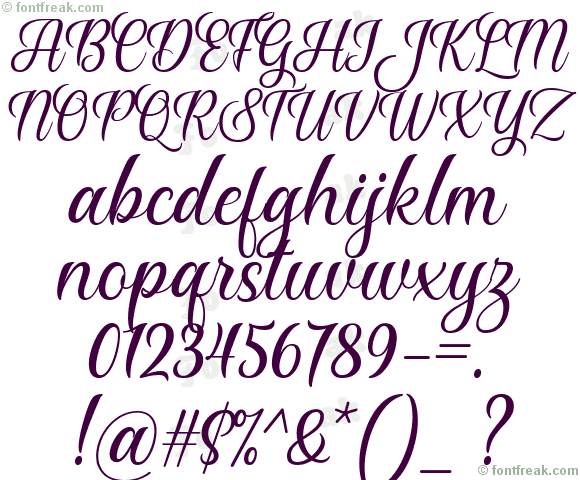
Say Yes
Say Yes — Character Map
About Say Yes
Say Yes, designed by Situjuh Nazara, is a stunning script font that captures the essence of elegance and warmth. This typeface features beautifully flowing letters with a graceful, handwritten quality, making it a perfect choice for various creative projects. The strokes are fluid and expressive, showcasing a medium to high contrast in weight that adds a sense of dynamism to the characters. The spacing is thoughtfully designed, providing a harmonious balance that enhances readability while maintaining its artistic flair.
This font is particularly well-suited for wedding invitations, where its romantic style can set the tone for a special day. It also shines in greeting cards and announcements, adding a personal touch that resonates with recipients. Restaurant menus can benefit from the charm of Say Yes, inviting patrons to enjoy an intimate dining experience. Additionally, it is ideal for branding purposes, especially for businesses looking to convey a friendly and approachable image. Graphic designers, small business owners, and content creators will find this font versatile and engaging, making it an excellent addition to their design toolkit.